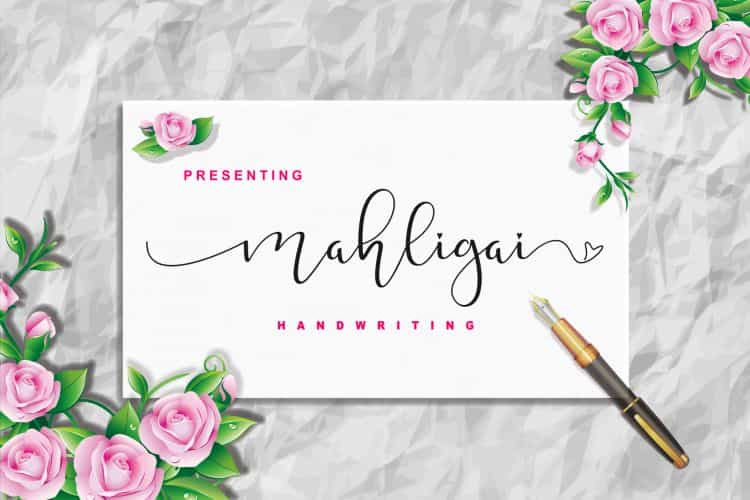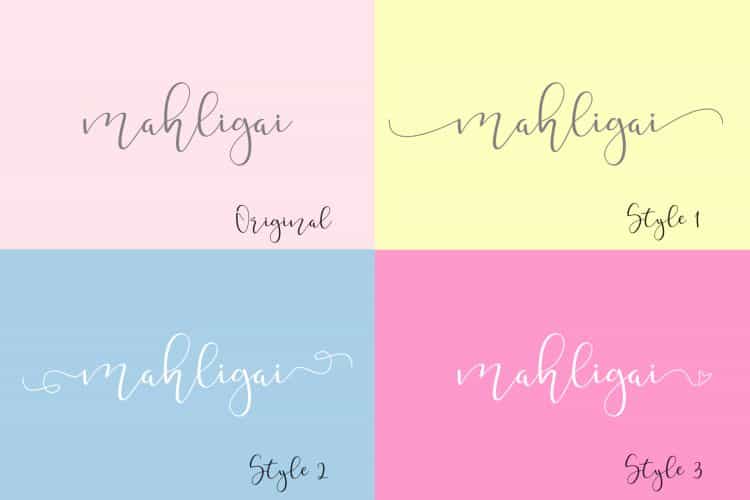
Discover Mahligai Calligraphy Font, part of the Calligraphy collection—a versatile and unique font perfect for adding a personal touch to your projects. Download it for free and enjoy crafting designs with style, from invitations to social media posts. This font is available exclusively for personal use, giving you the freedom to create without limits. Unlock your creativity with Mahligai Calligraphy Font today!
Mahligai Font – Script calligraphy a new elegant font now! Just right for the creation of sophisticated and stylish messages – or a little bit of elegance to your designs. Mahligai created by Malindo Creative and shared with us. Mahligai Calligraphy Font is A Beautiful Handwriting, This Style of Writing Is Irregular Between The Upper and Lower Cases, And It Is a Smooth and Coarse Typeface which Will be Used for All Types of Designing and Printing.